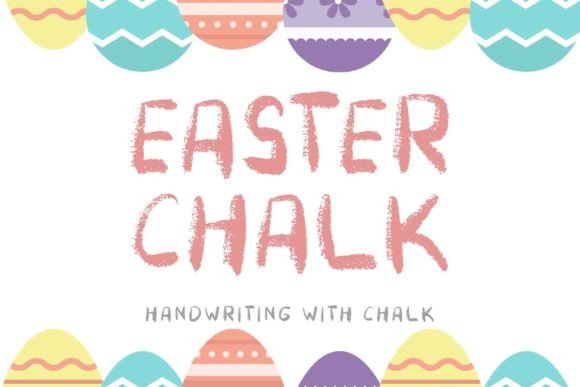
Journey into the realm of enchanting typography with Easter Chalk Font, a display font family that weaves a spell of whimsy and charm. This captivating creation by yogaletter6 is not just a collection of letters; it's an artistic expression that transports you to a world of nostalgic allure.
Picture the delicate strokes of chalk against a weathered blackboard, capturing the essence of a bygone era. Easter Chalk Font embodies this charm with its hand-drawn style, reminiscent of handwritten notes and heartfelt messages. Its beautiful flourishes and imperfections add a touch of warmth and character, making each word come alive with personality.
With Easter Chalk Font, you embark on a creative adventure where imagination reigns supreme. It's a font that beckons you to express yourself in a unique and captivating way. Whether you're designing invitations for a special celebration, crafting menus that tantalize the senses, or creating artwork that speaks to the heart, this font is your muse.
Step into the world of Easter Chalk Font and let your creativity soar. Its versatility knows no bounds, adapting effortlessly to a myriad of projects. From branding and packaging that exudes a cozy charm to social media posts that pop with personality, this font is your secret weapon for capturing attention and leaving a lasting impression.
With Easter Chalk Font, you gain more than just a font; you embrace a philosophy of artistry and heartfelt expression. It's a font that evokes emotions, sparks conversations, and creates connections. It's not just about the words you write; it's about the emotions you convey.
So, immerse yourself in the magic of Easter Chalk Font and let your creative spirit flourish. Its whimsical charm and beautiful imperfections will transform your designs into captivating works of art that resonate with your audience. Embrace the nostalgia, revel in the cuteness, and let your imagination run wild.